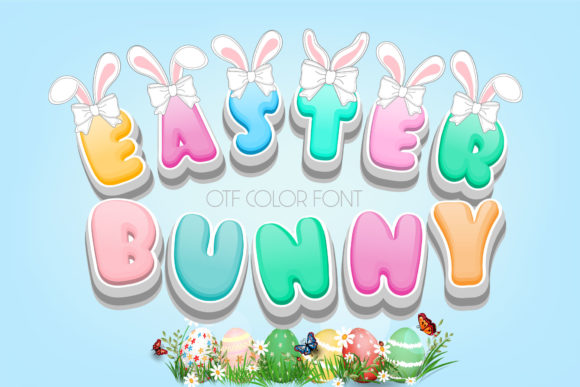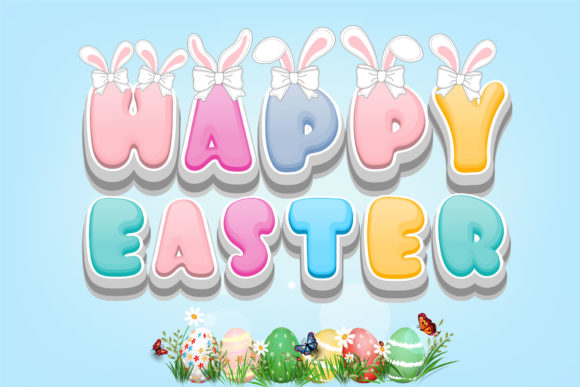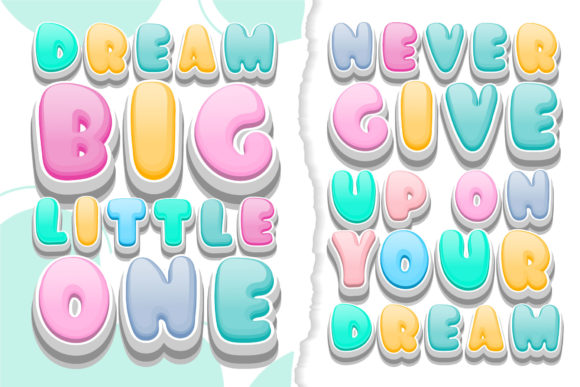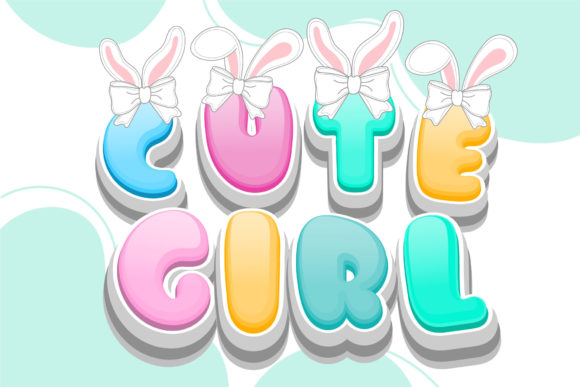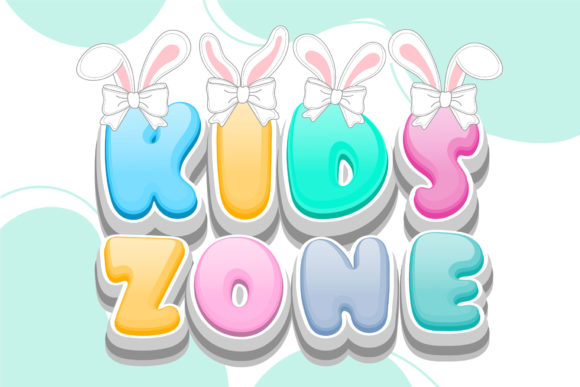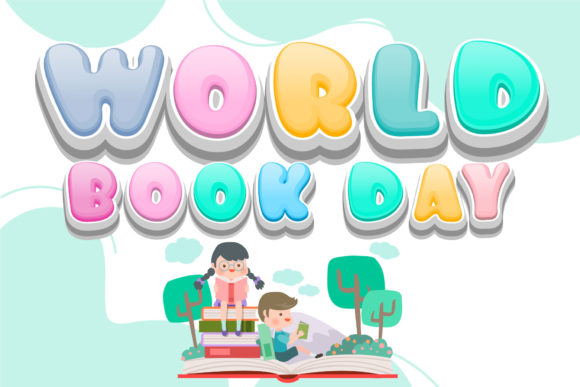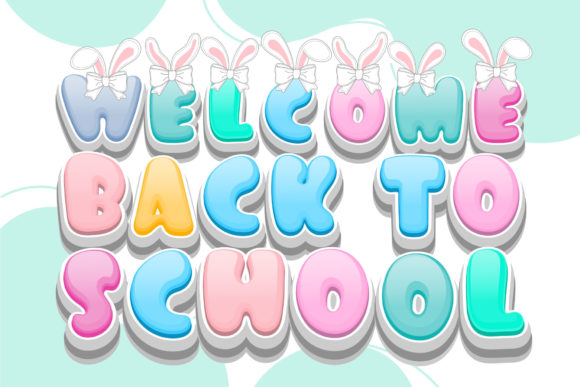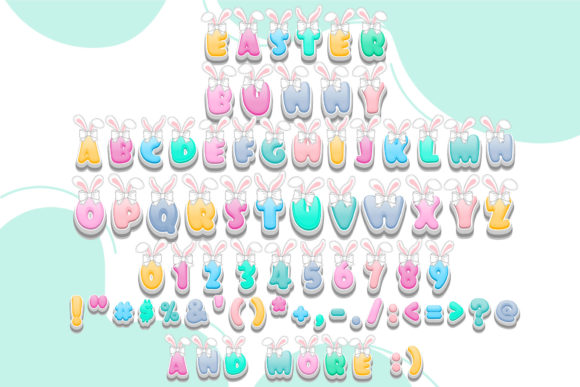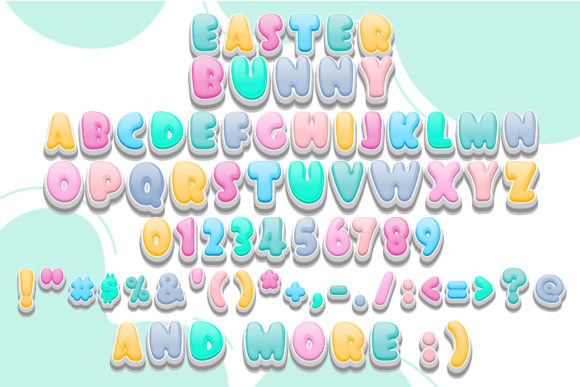
Easter Bunny Font
About Easter Bunny Font
Get ready to add a touch of sweetness and charm to your Easter creations with the Easter Bunny font! This delightful color font is designed with a sweet, chic, and bubbly style that perfectly captures the spirit of Easter.
Whether you’re designing Easter cards, invitations, flyers, or any other Easter-themed project, the Easter Bunny font will bring your creations to life. With its playful and colorful letterforms, this font adds a whimsical and festive touch to your designs.
Add the Easter Bunny font to your favorite Easter creations and watch as they come to life with a touch of sweetness and whimsy. Experiment with different colors, combine it with other design elements, and let your creativity shine.
Celebrate Easter in style with the Easter Bunny font and create stunning designs that capture the joy and beauty of this special holiday.